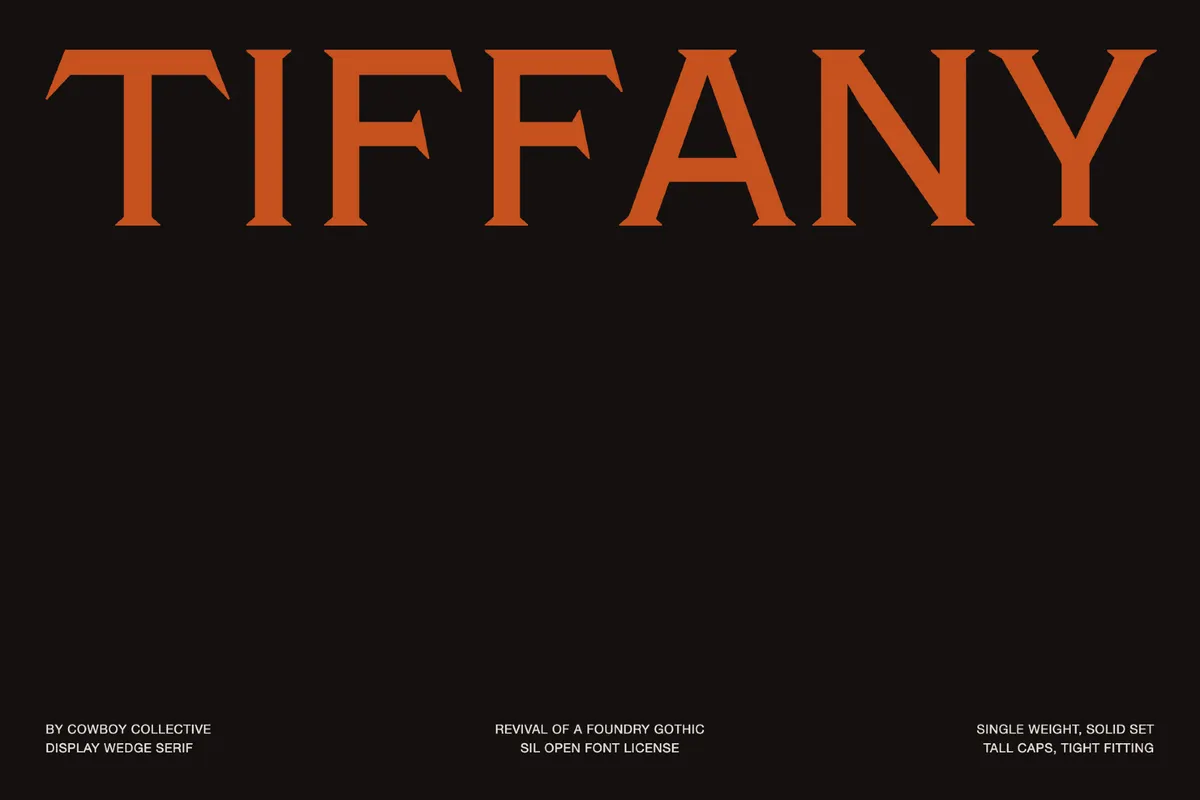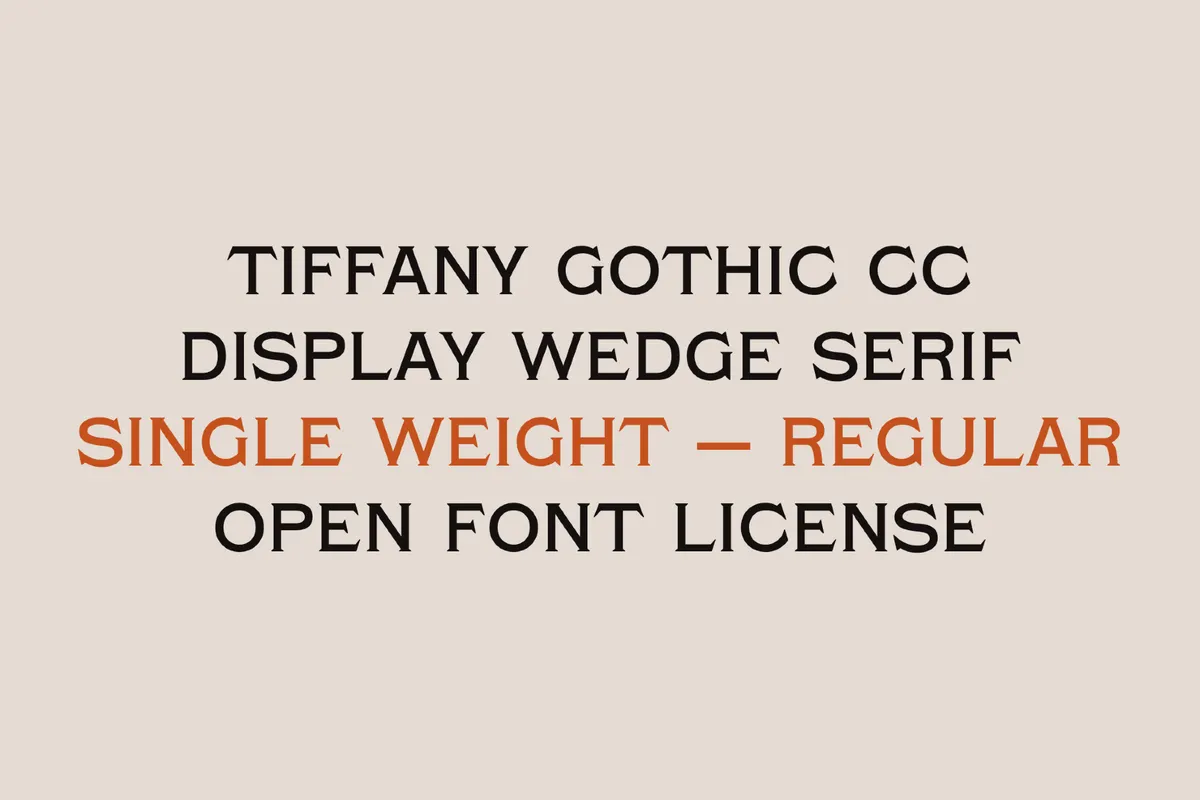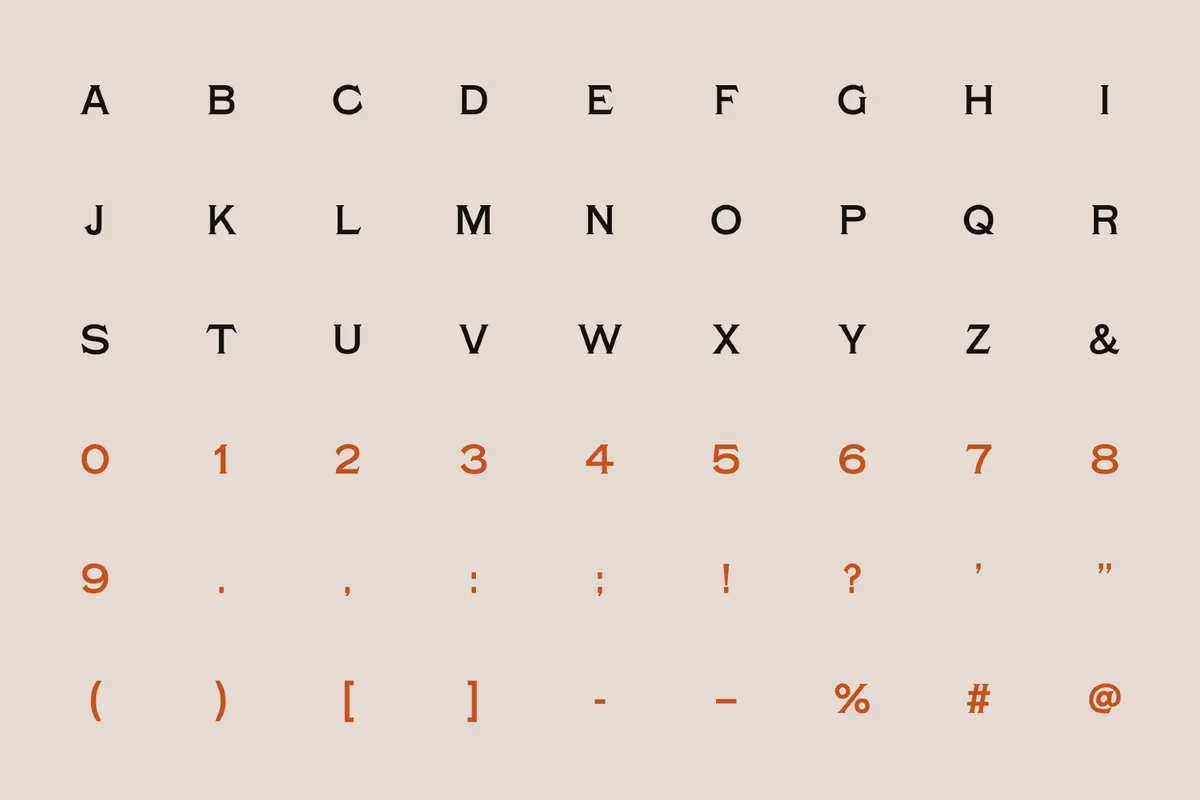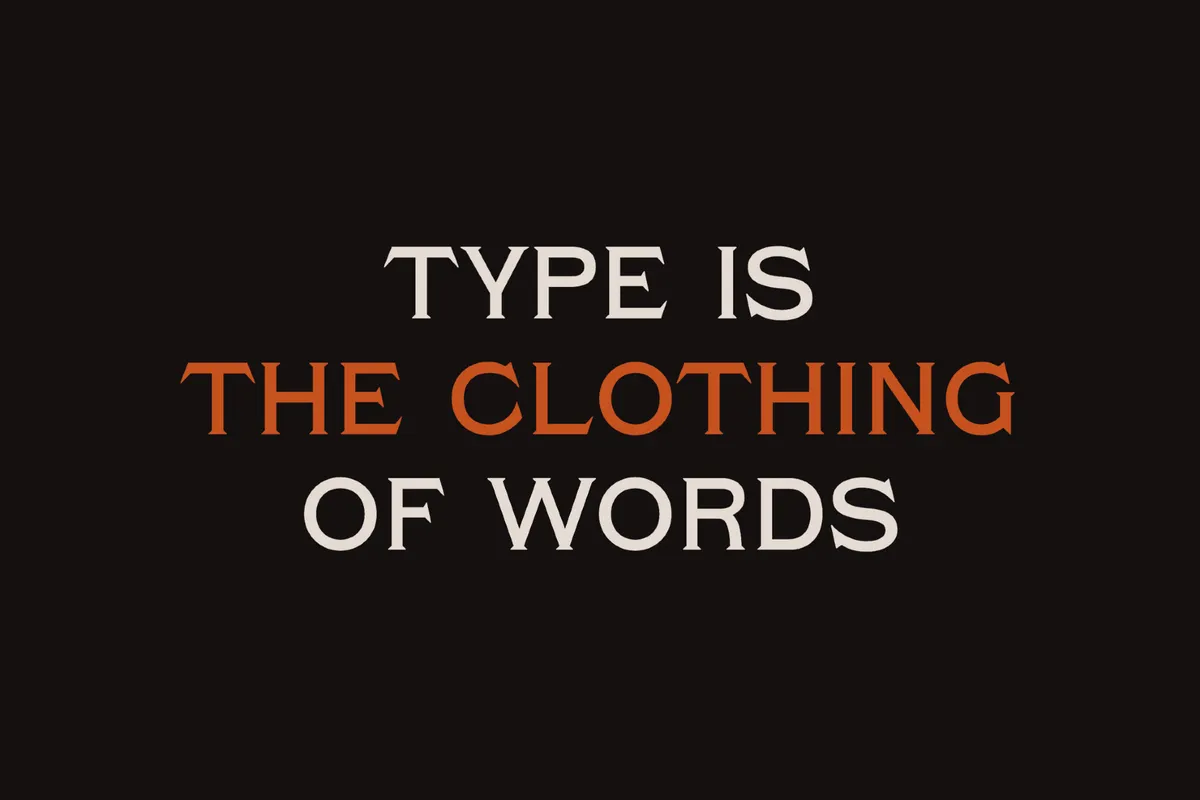
Tiffany Gothic CC - Free Engraving Font
Tiffany Gothic CC is an engraved glyphic caps font whose strokes flare gently into wedge-like terminals, closer in spirit to Copperplate than to any block gothic. It suits luxury and heritage branding, monograms, stationery, certificates, boutique and hotel identities, packaging, event titling, logo work, and engraved-style signage.
• uppercase letters and small capitals;
• numbers, punctuation, and symbols;
• multilingual support across the extended Latin script;
• stylistic alternates.